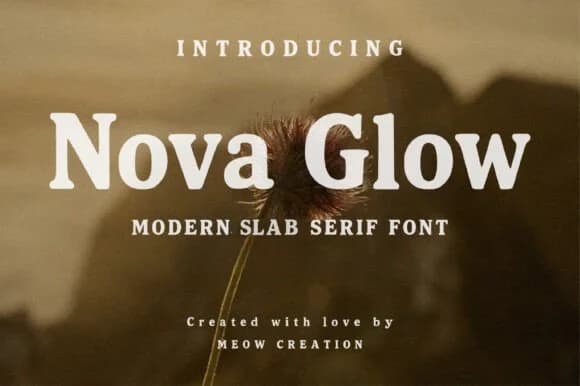
You're designing an identity system for a luxury coffee roastery and need a typeface that anchors both the storefront signage and the website without losing sophistication. Nova Glow by Meow Creation is a slab serif that pulls this off with room to spare. The typeface merges geometric clarity with restrained style, bringing warmth from retro inspiration while staying contemporary in feel. It's built for the specific jobs designers reach for it most: restaurant menu boards, wine label design, upscale product packaging, editorial magazine spreads, and luxury brand websites that need visual weight without pretension.
What sets Nova Glow apart is its dual competence. The typeface reads with genuine confidence at large display sizes while maintaining clarity in smaller applications, a rare quality for serifs with this much presence. Its structured forms give coherence to luxury brand identities, fashion lookbooks, and the kind of social media graphics that stop the scroll. You'll find it performs equally well in print (embossed on cardstock, screenprinted on signage) and on screen (website headers, digital advertisements), a versatility that justifies including it in any serious toolkit.
- Sturdy, Confident, Modern Sans Serif Font
Nova Glow Font is a slab serif font that shines as a display or heading face. Pair it with a clean sans-serif or serif font for body text β the contrast creates a clear hierarchy while the two styles stay balanced and easy to read.